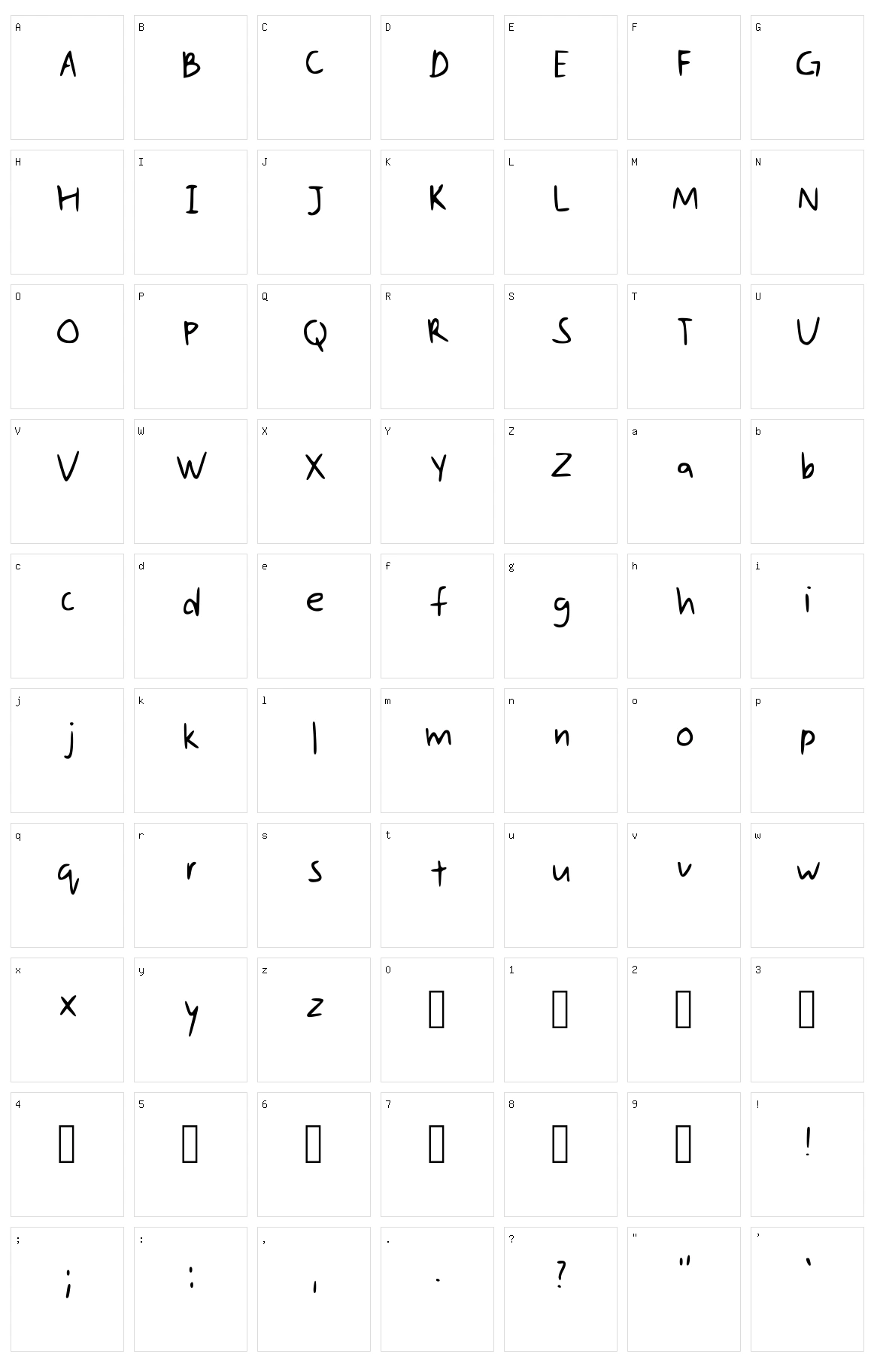
The free font Xieywrit is carefully designed by Dnshsbsgd Dyshvvvd, showcasing a thoughtful balance of creativity and usability and falls under the Script font style. When you download the ZIP file, it contains only 5.94 KB of font files, making it lightweight and quick to download. Please review the license details below to understand permitted usage and distribution rights. If license information is not available, we recommend using this font for personal projects only or contacting the author directly for commercial usage permissions.